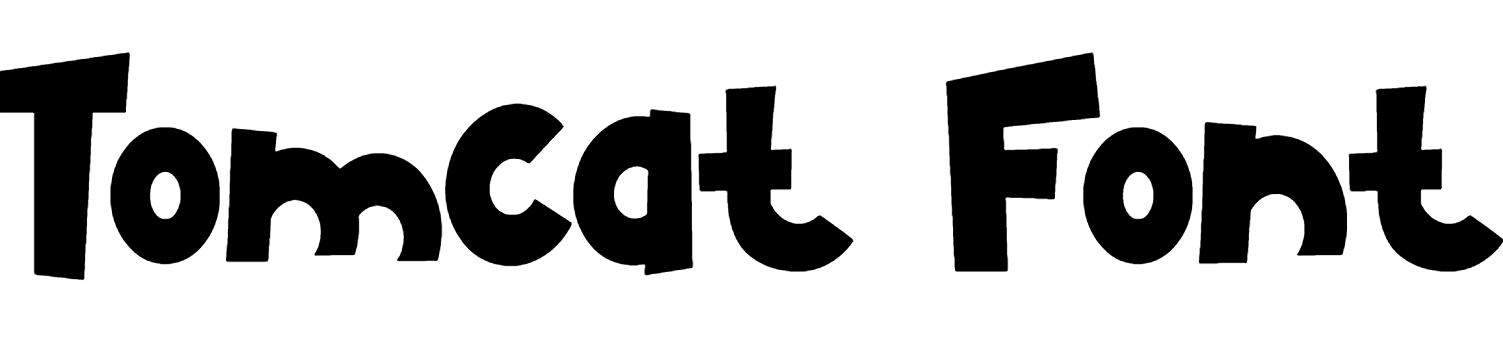
The “Tomcat” font refers to a couple of distinct, playful display typefaces widely popular for creative, cartoonish, and comic-style designs. The most prominent versions are designed by Trim Studio and the Pinisiart Team, both crafting bold and energetic aesthetics.
Tomcat
Tomcat is a cartoon font designed by PINISIART TEAM and published by PINISIART.